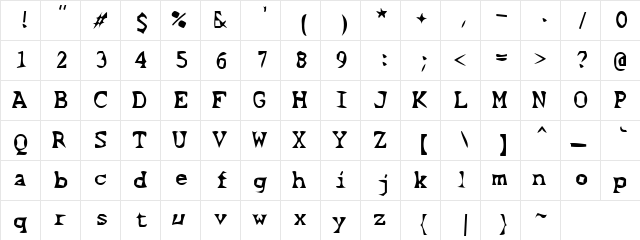
Hidden Beauty Regular
Design Context for Hidden Beauty Typeface
Hidden Beauty takes a measured approach to typography — its balanced proportions and neutral character make it a reliable workhorse for both digital and print work.